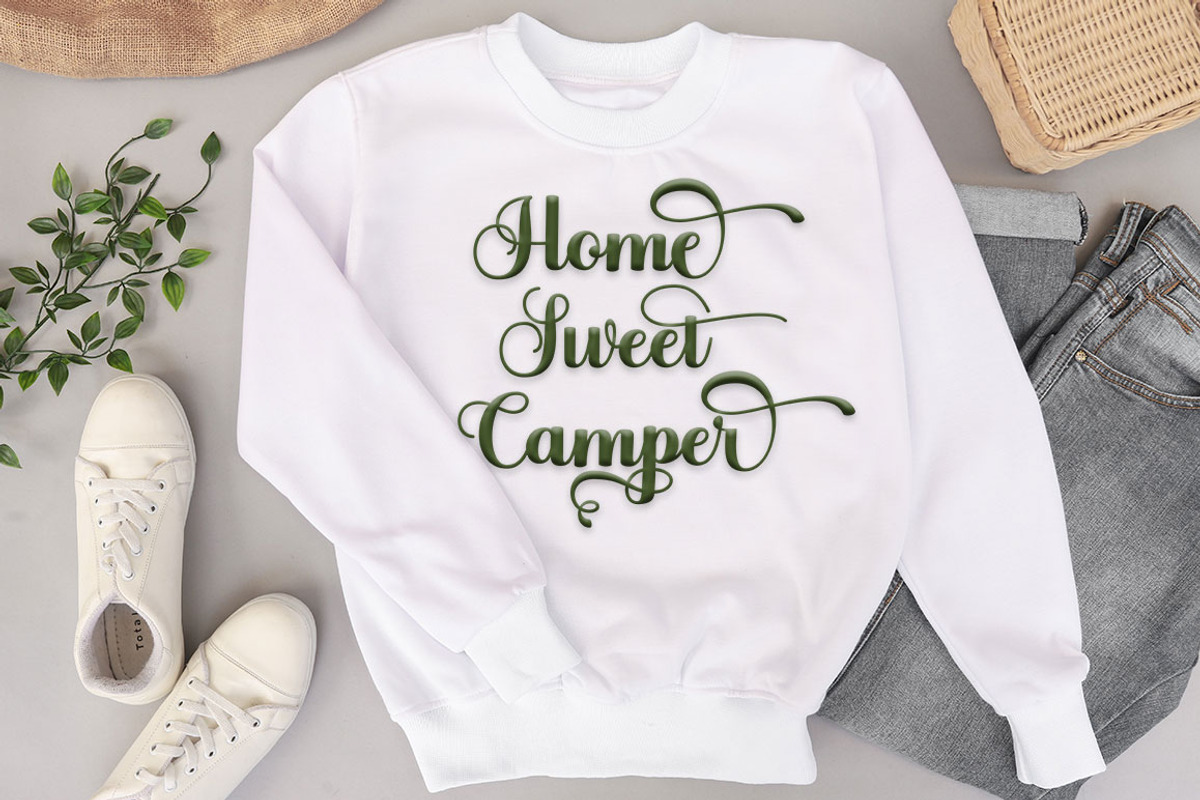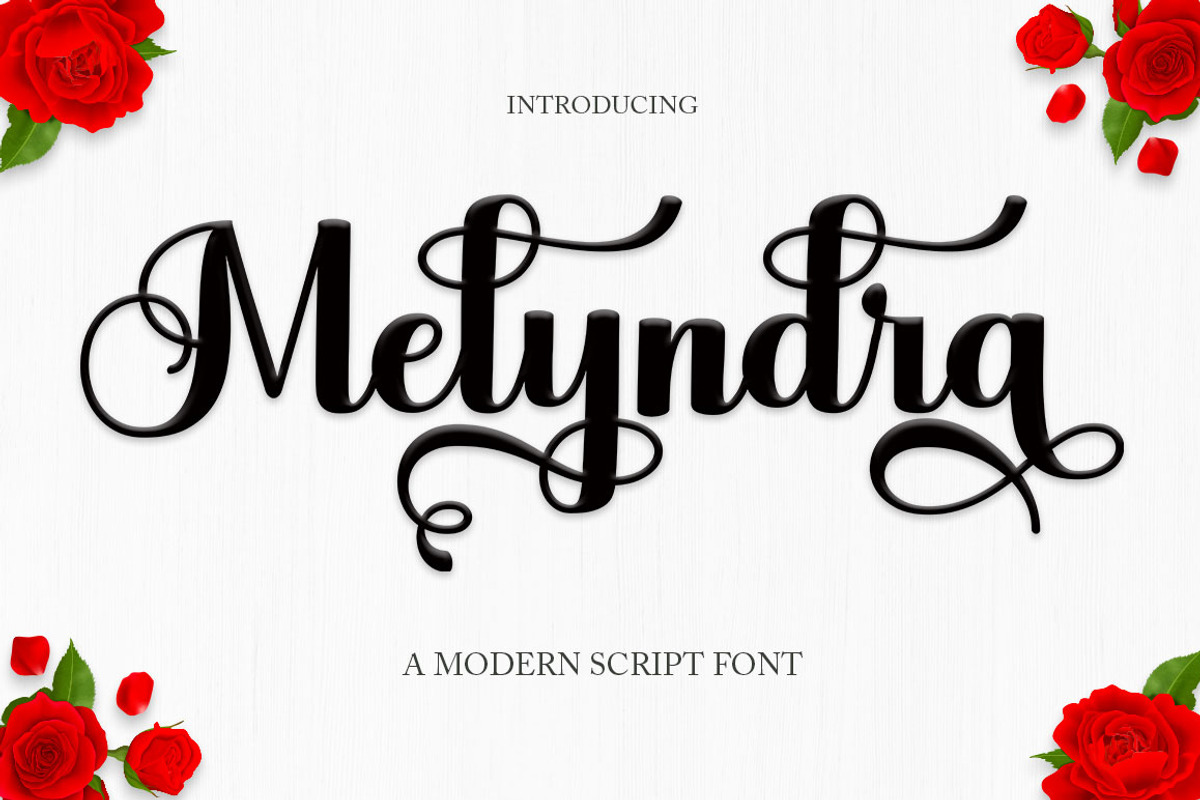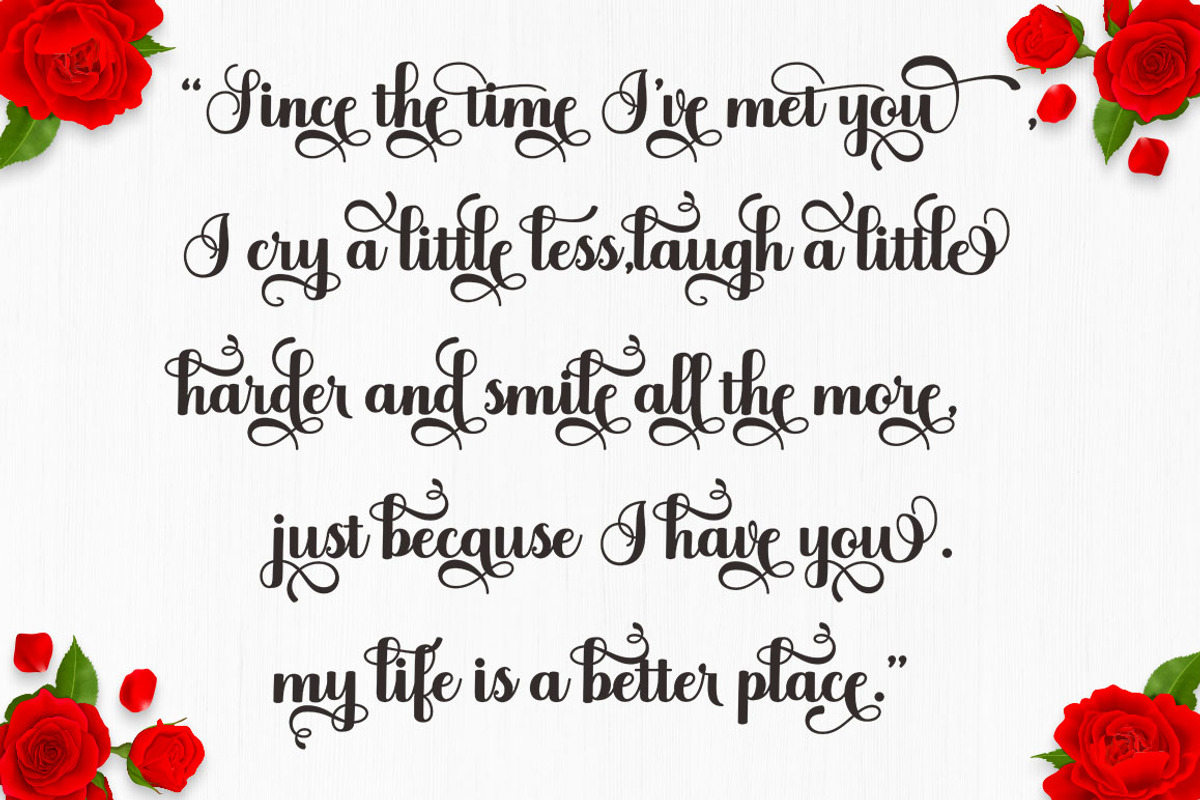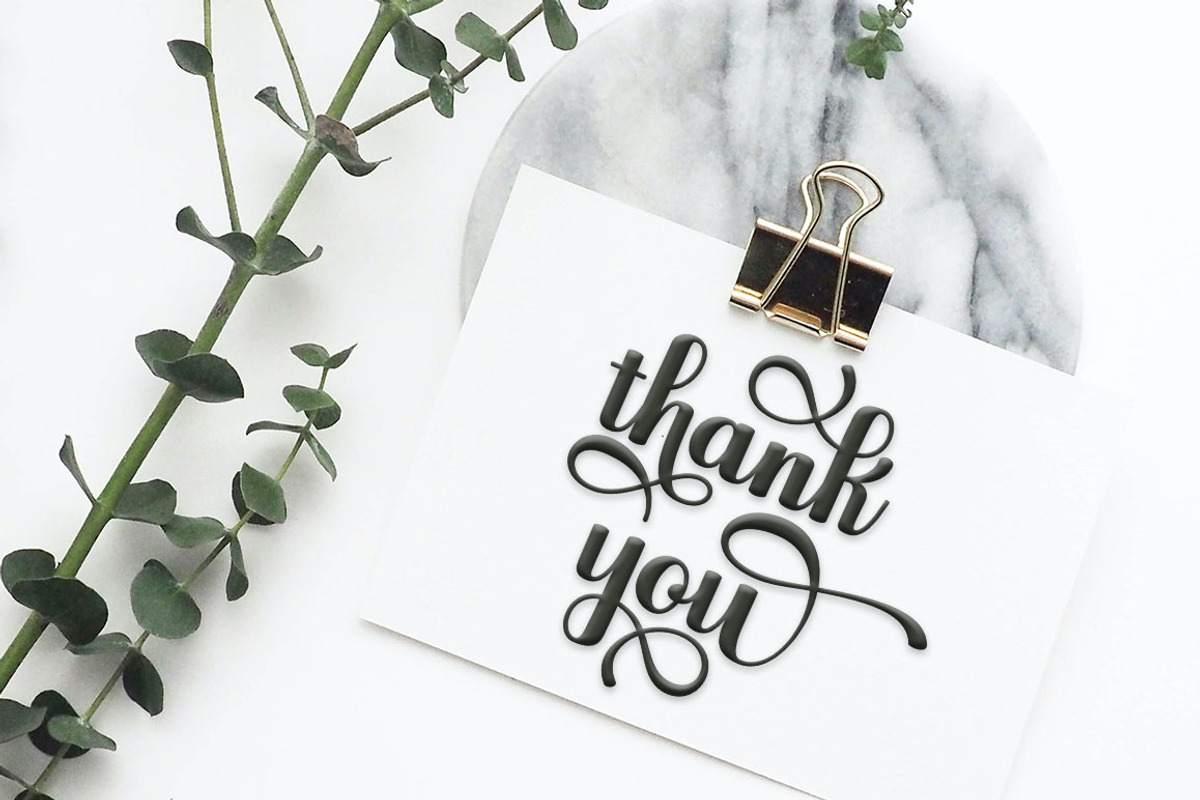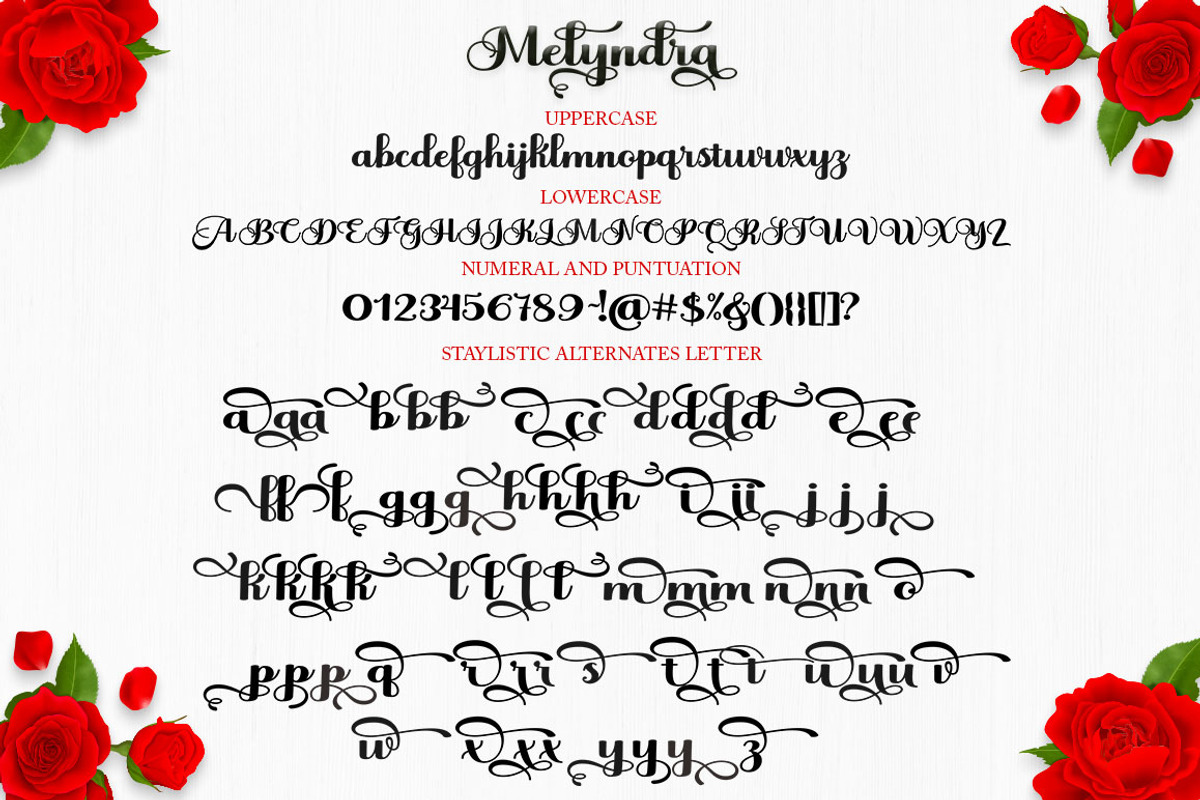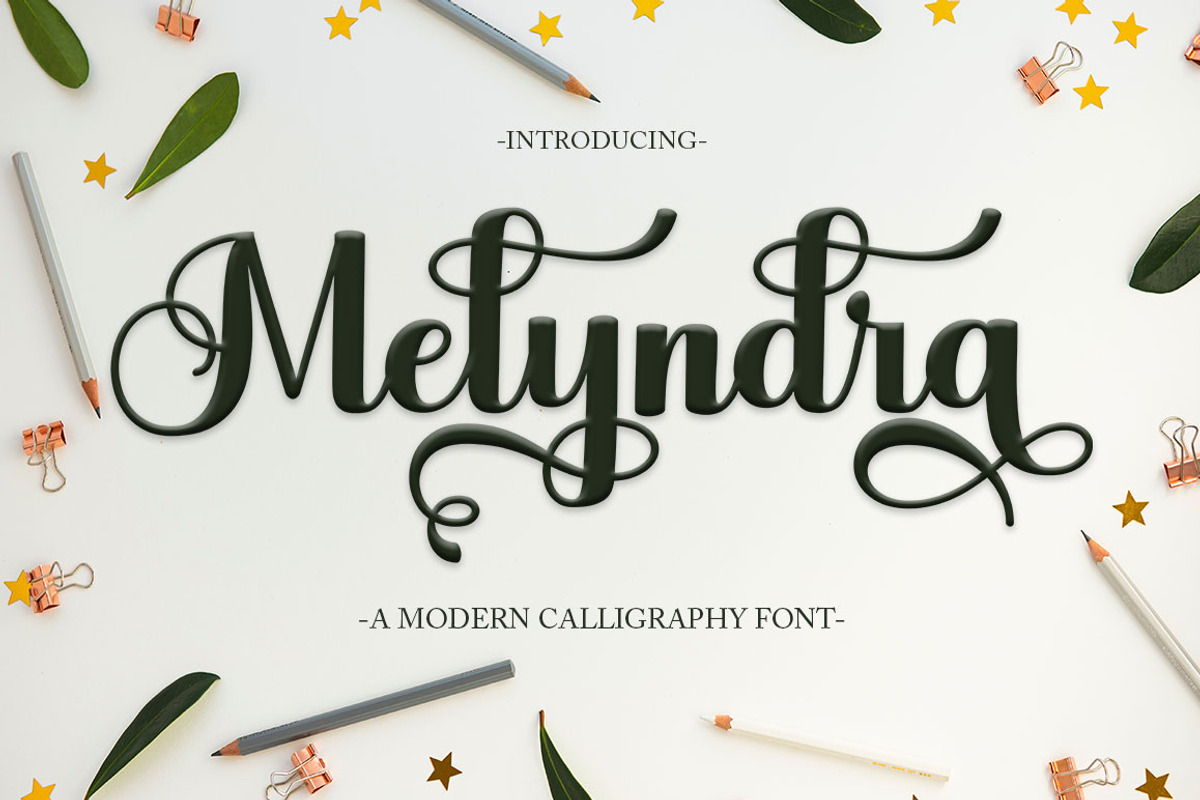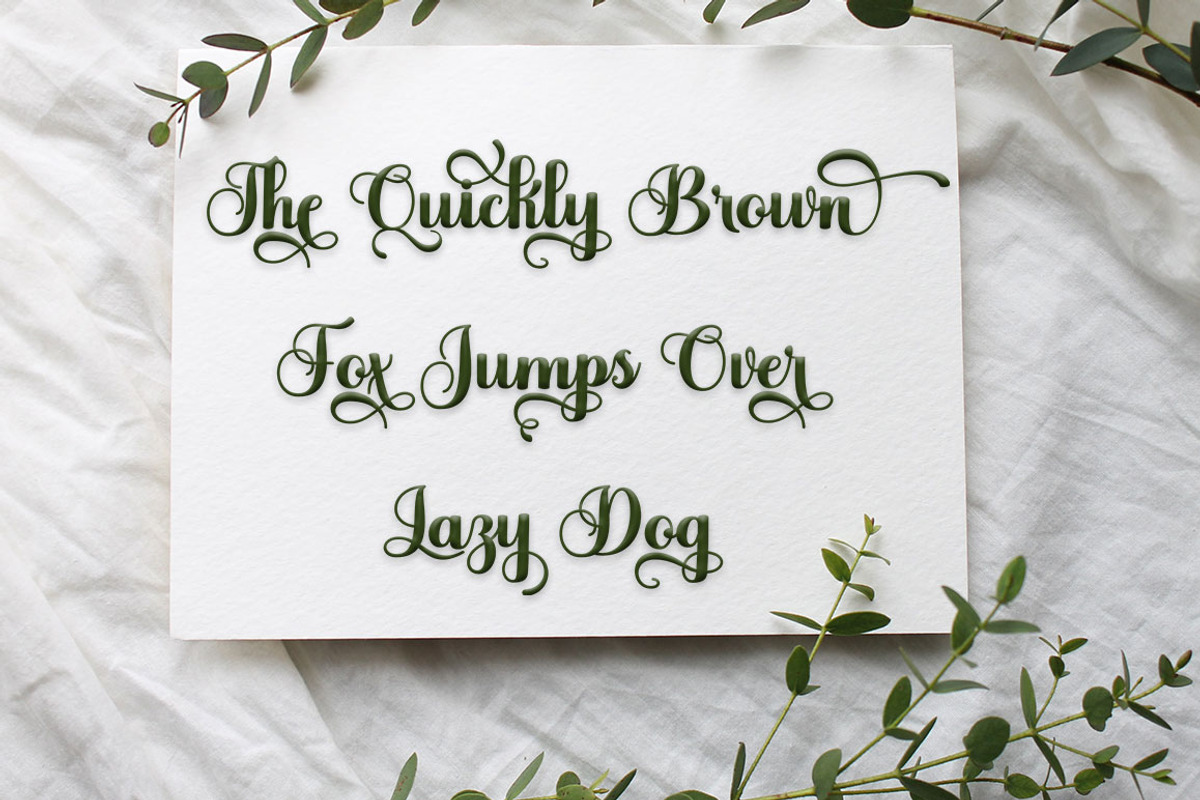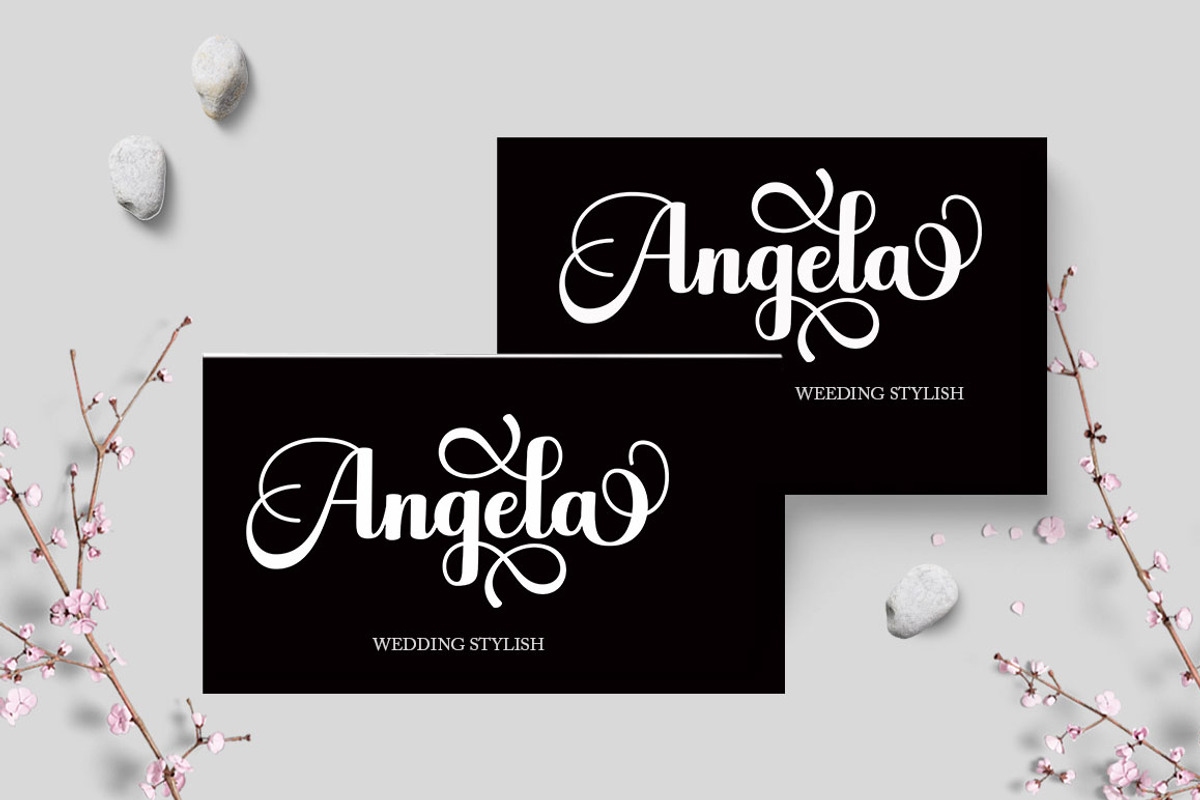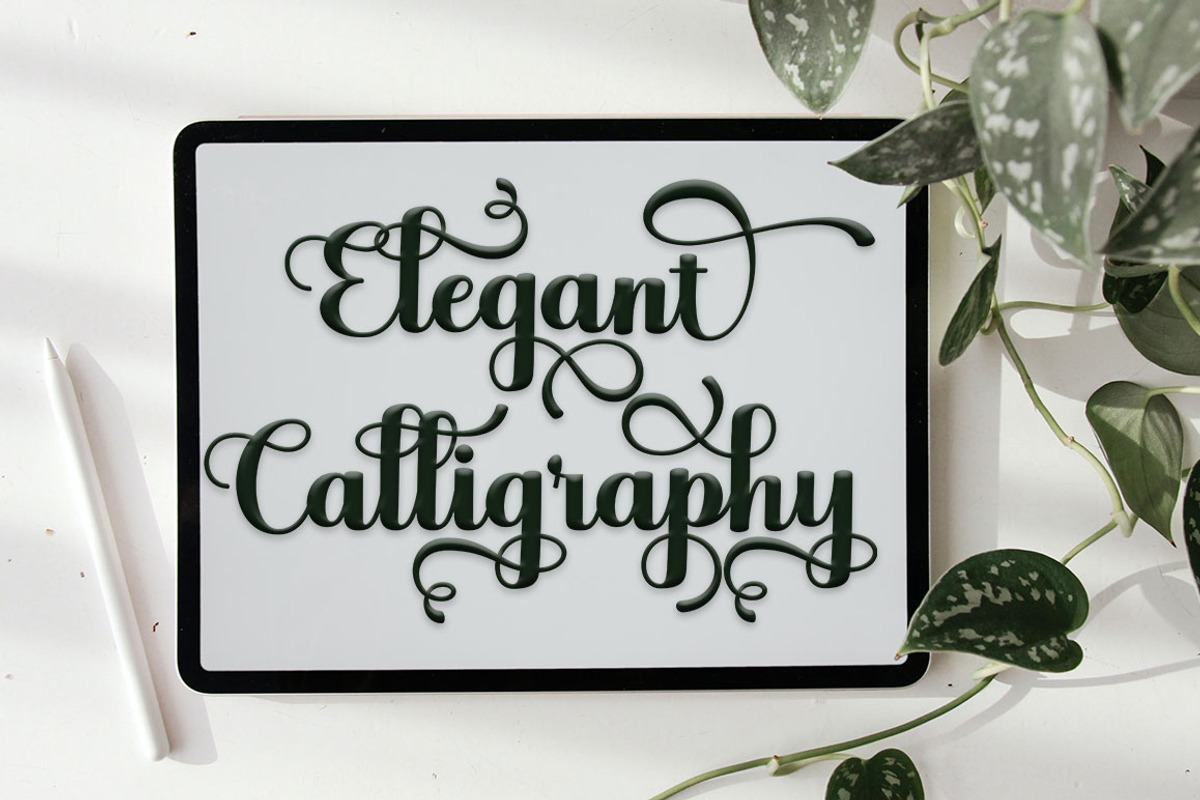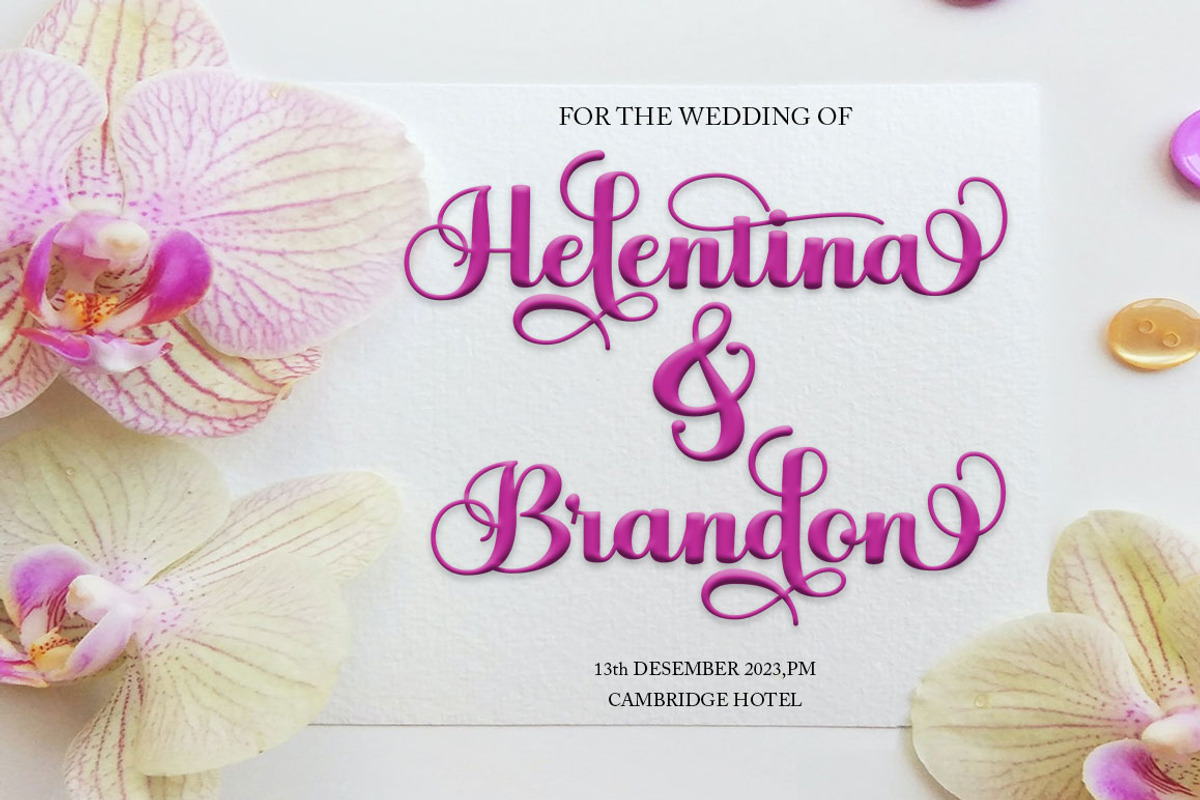
Melyndra Script
Melyndra Script is a modern calligraphy font, including regular, italic and extras featuring a sleek and neat glyph. This font has a beautiful and balanced character, making it suitable for various purposes. such as written posters, wedding invitations, logos, product packaging, branding, titles, signs, labels, mugs, book covers, quotes, and others.